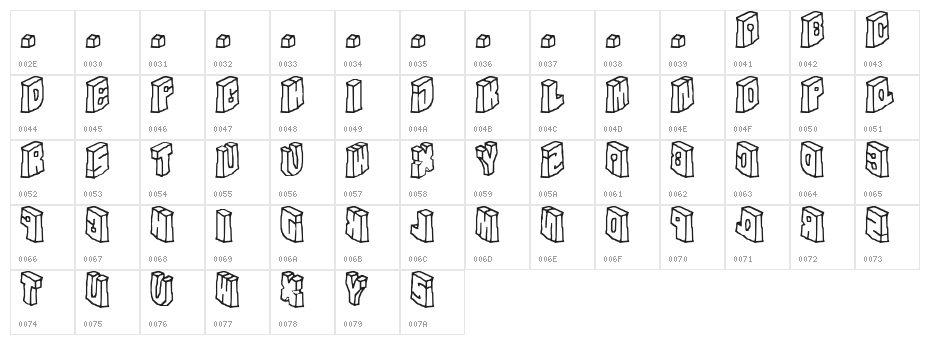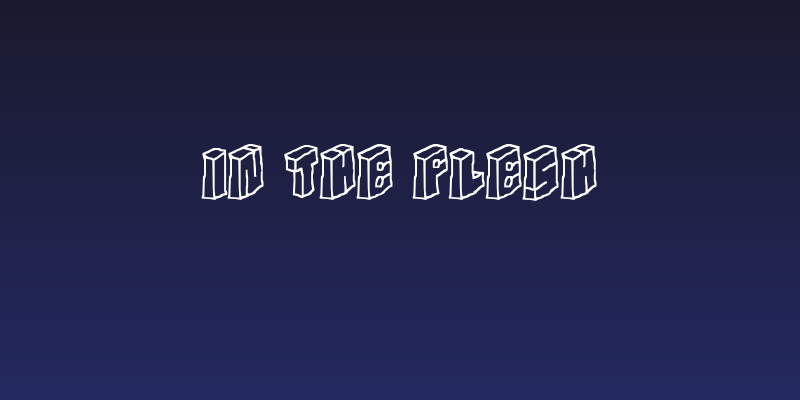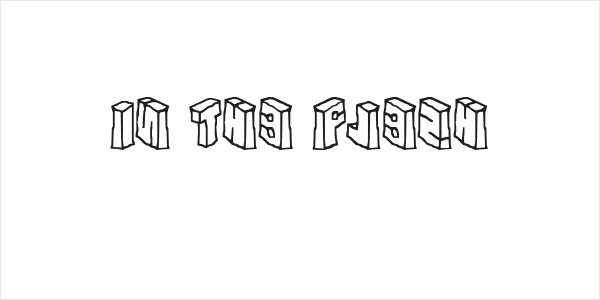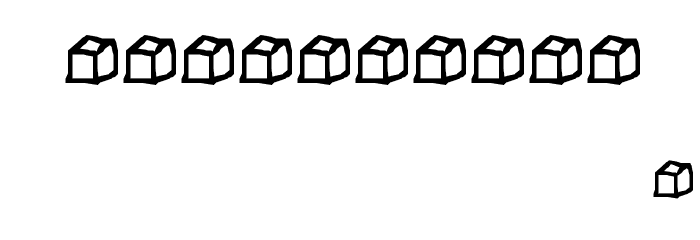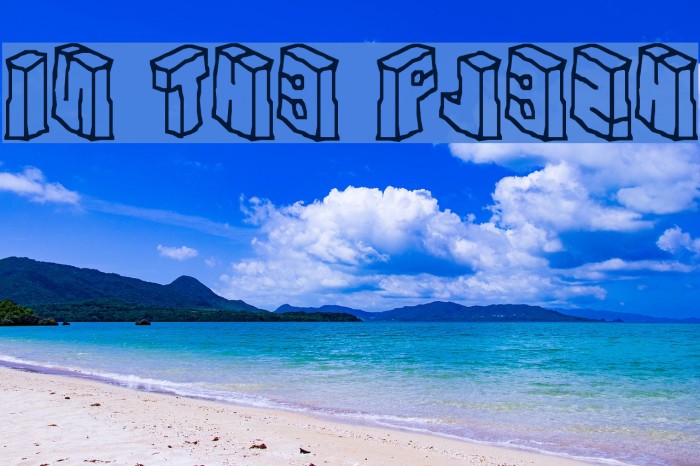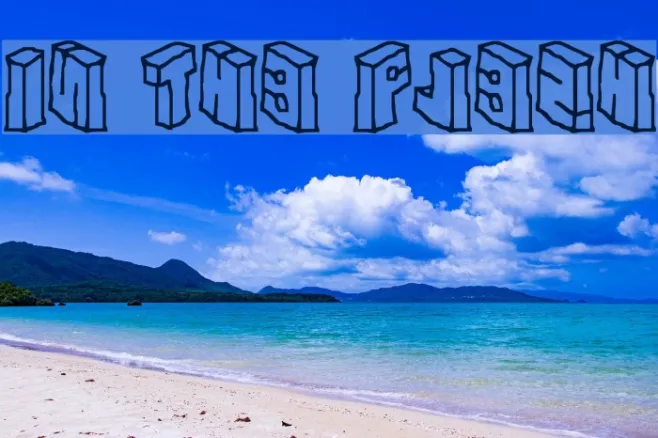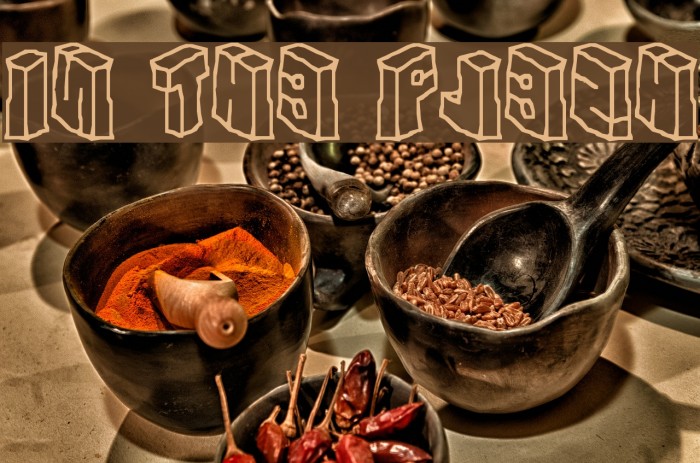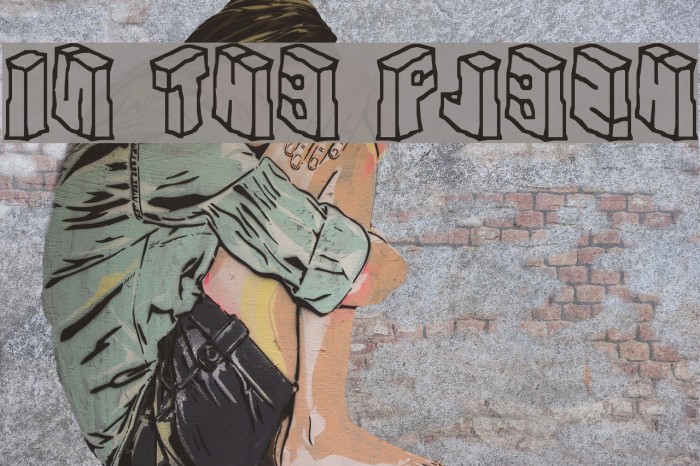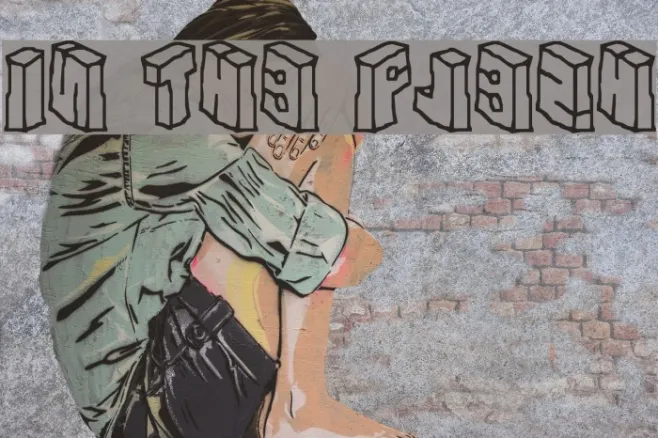
In The Flesh Font
In The Flesh Description
This font features a bold, three-dimensional block style with a distinct outline that gives each character a robust and impactful appearance. The letters are designed with a shadow effect, creating a sense of depth and dimension. The geometric structure of the characters is consistent, with straight lines and sharp angles, contributing to a modern and edgy aesthetic. The uppercase and lowercase letters maintain a uniform style, while the numbers and special characters seamlessly integrate into the overall design. This font's unique 3D effect makes it stand out, making it ideal for projects that require a strong visual impact.
| Proposed Projects | Ideal for posters, logos, video game titles, and any design needing a striking, modern look. |